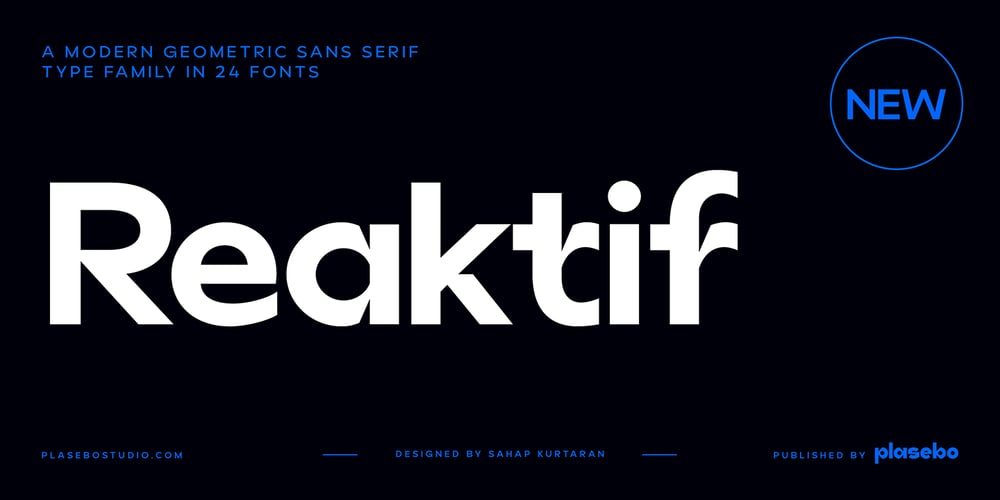
Reaktif
Reaktif font
Reaktif Font Family was designed by Sahap Kurtaran and published by Plasebo Studio. Reaktif contains 24 styles and family package options. Reaktif type family has been created with a new and modern approach to thepopular geometric sans serif type. It has a very legible, multifunctional, contemporaryand dynamic design.Sharp-angle details in minuscule letters “a, b, d, f, g, m, n, p, q, r, t, u” boosts its’ characteristics in the Reaktif font family.Reaktif type family contains 24 fonts and 550+ glyphs. Stylistic alternatives comewith 30+ ligatures and many opentype features. It can meet your needs in many mediumsuch as Reaktif branding, editorial, web and printing.